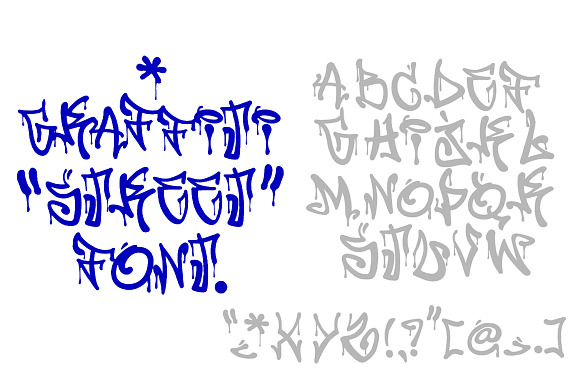
California Hip Hop Graffiti Font
Why California Hip Hop Graffiti Font is worth a look
California Hip Hop Graffiti Font by AntonyChernianu fits naturally into Branding, posters, packaging, typography.